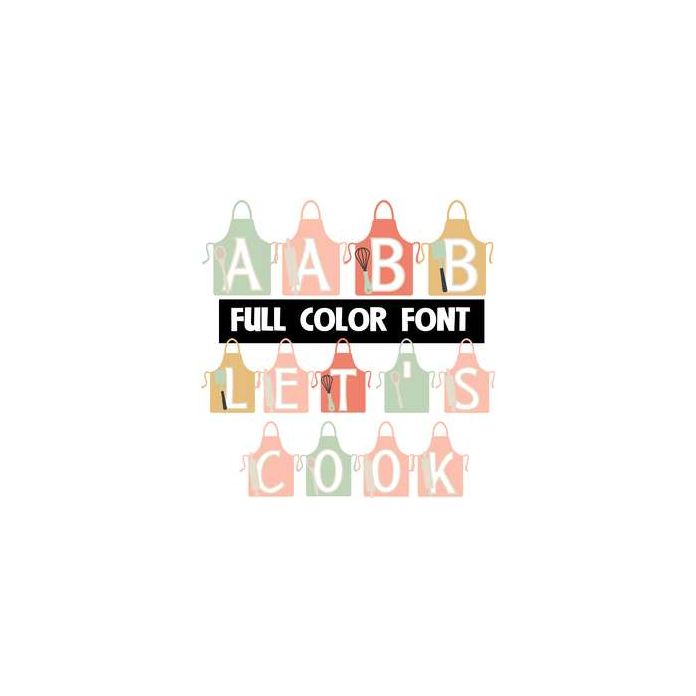
This full-color font features letters on aprons. This font works best for titles, displays, posters and more. Please note color fonts will show as black in non compatible programs. This font type is compatible with Silhouette Studio.